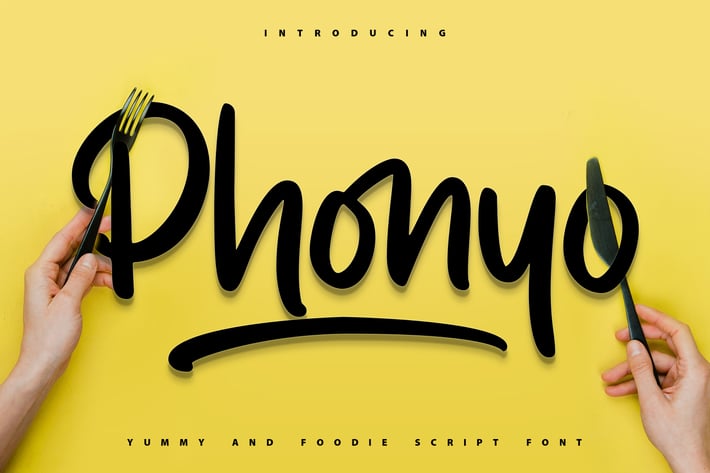
Phonyo | Foodie Script Font
Phonyo | Foodie Script Font with a calligraphy style, So beautiful on invitation like greeting cards, branding materials, business cards, quotes, posters, and more!